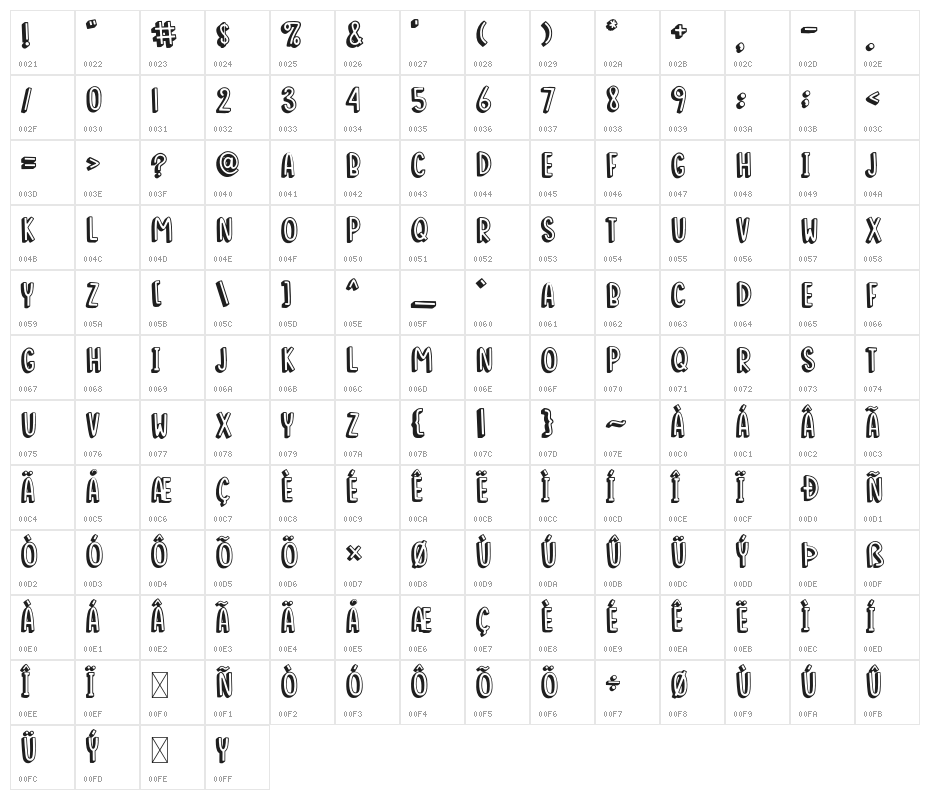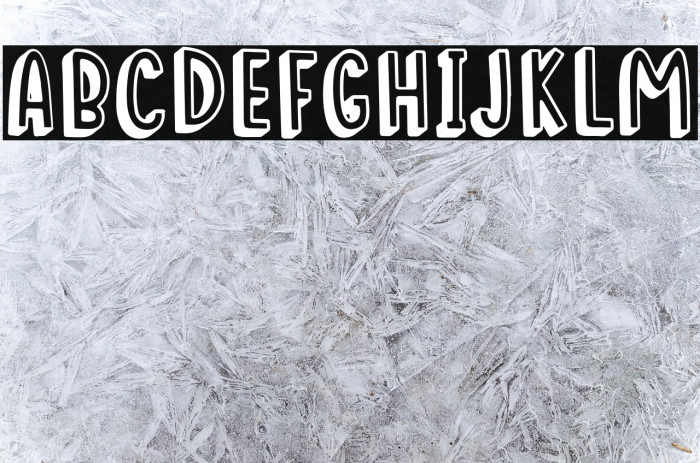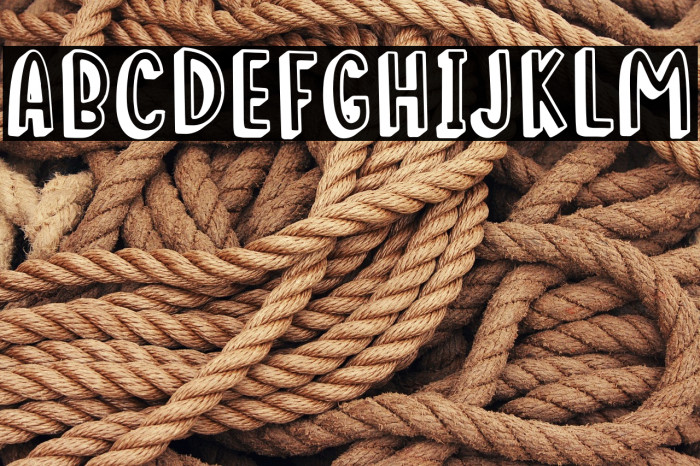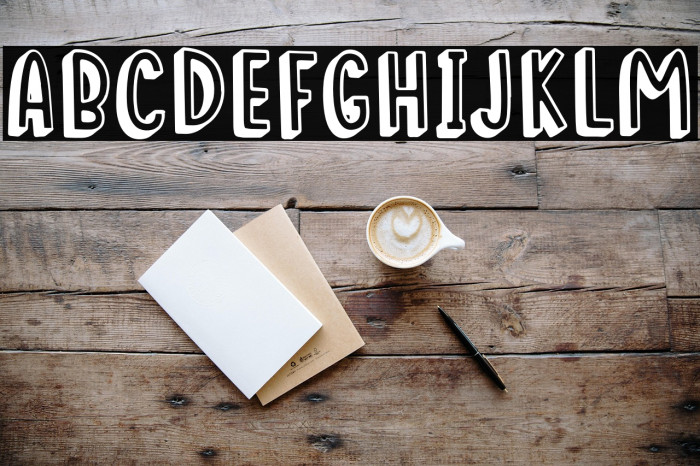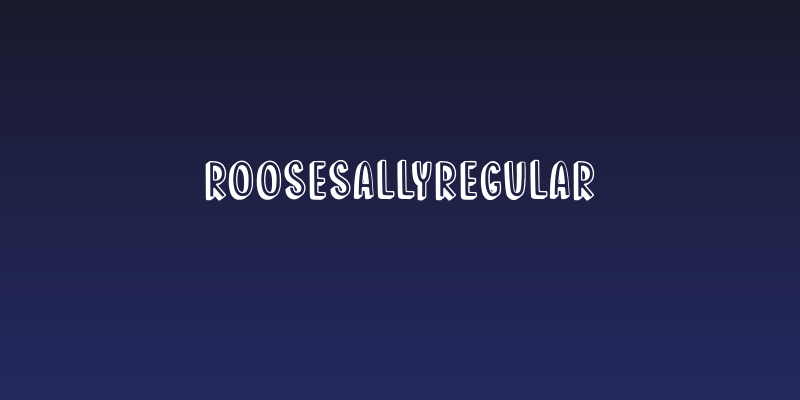
RooseSallyRegular Font
RooseSallyRegular Description
This font features a playful and bold design with a hand-drawn aesthetic. Each character is outlined, giving it a three-dimensional effect that adds depth and interest. The letters are uppercase and have a slightly irregular shape, enhancing the casual and fun vibe. The numbers and special characters follow the same style, ensuring consistency across all glyphs. This font is perfect for projects that require a lively and engaging look, such as children's books, posters, or party invitations. The bold outlines make it highly legible, even at smaller sizes.
| Overall Style | Playful, Hand-drawn |
| Proposed Projects | Ideal for children's books, posters, party invitations, and playful branding. |